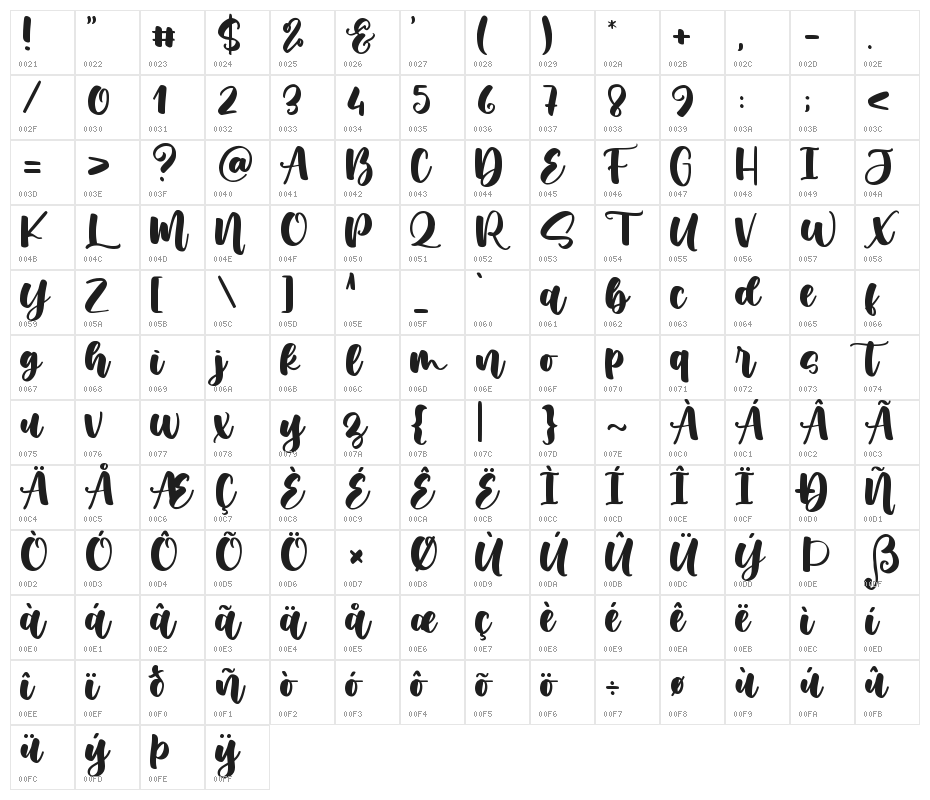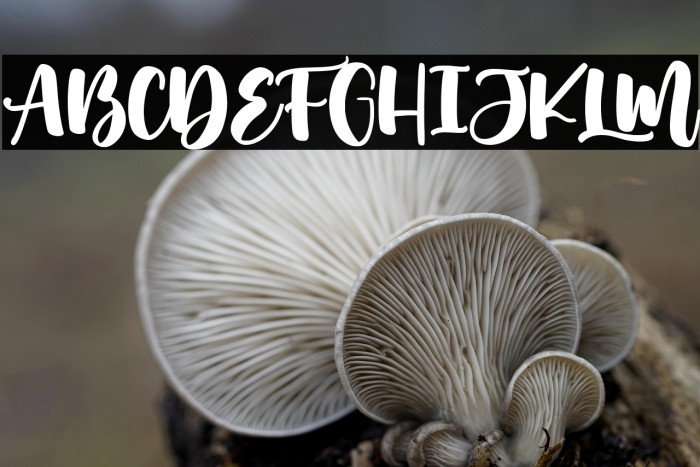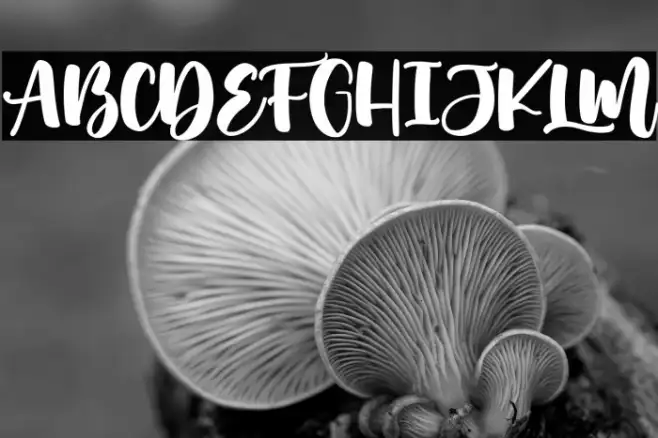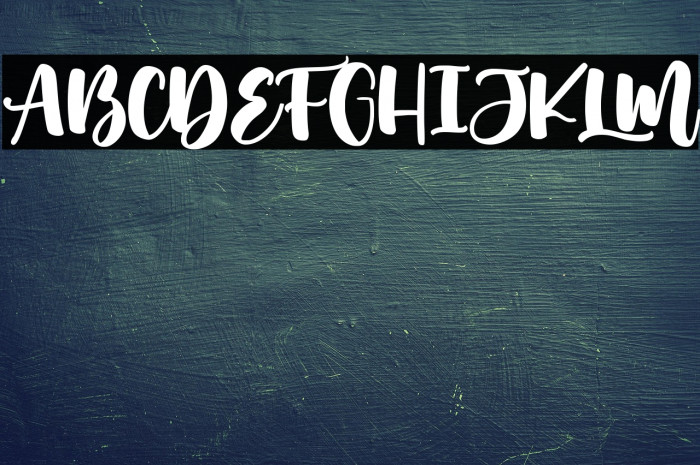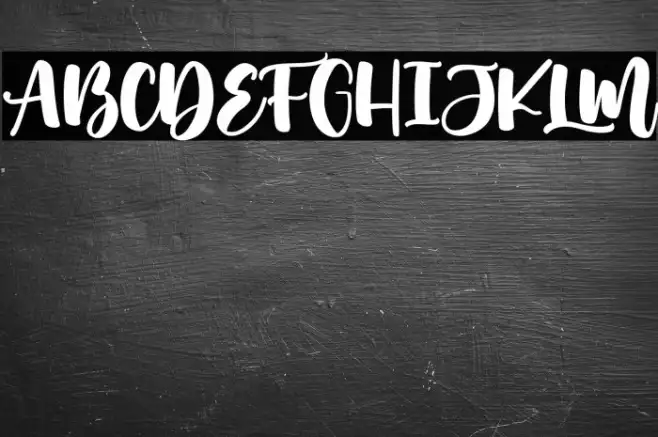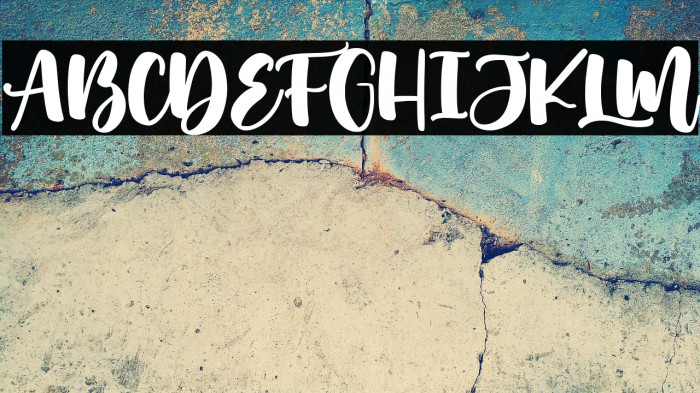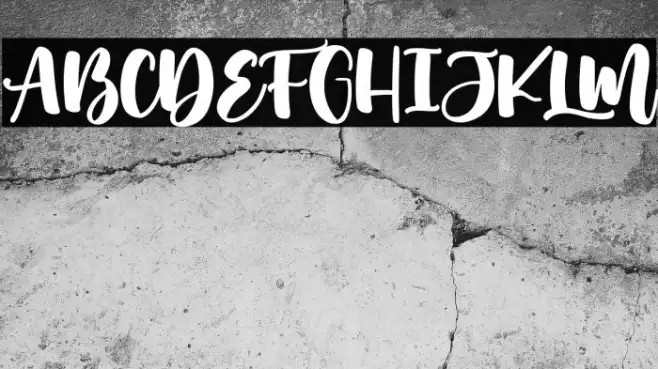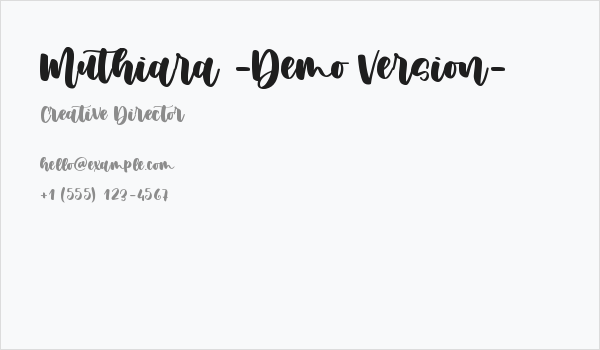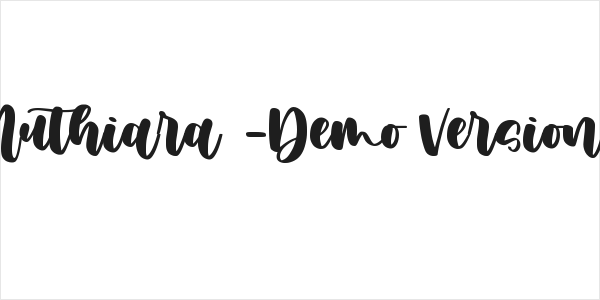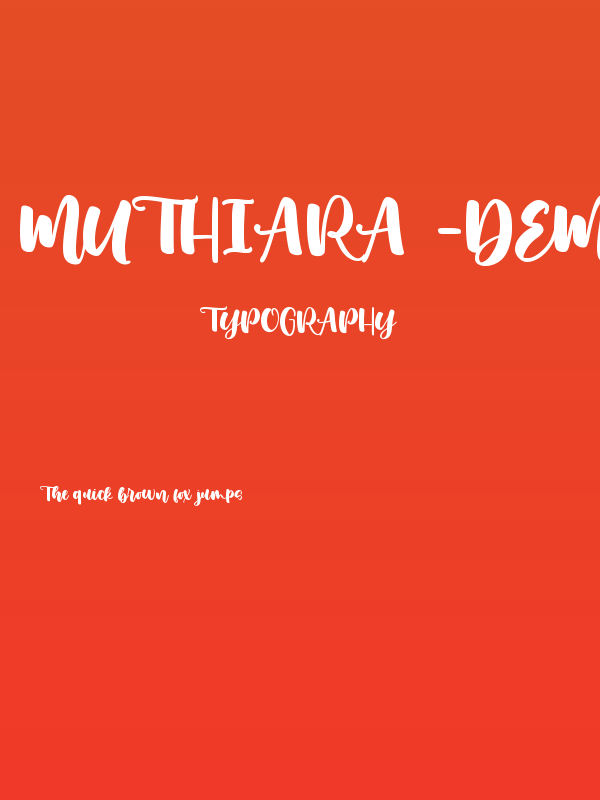
Muthiara -Demo Version- Font
Muthiara -Demo Version- Description
This font features a bold and expressive script style, characterized by its flowing, cursive letterforms. The strokes are thick and consistent, giving it a strong presence on the page. The uppercase letters are particularly striking, with dramatic flourishes and loops that add a sense of elegance and movement. The lowercase letters maintain a cohesive look, with smooth connections and rounded shapes. Numbers and special characters are designed to match the overall style, ensuring a harmonious appearance across all text elements. This font's playful yet sophisticated design makes it suitable for a variety of creative applications.